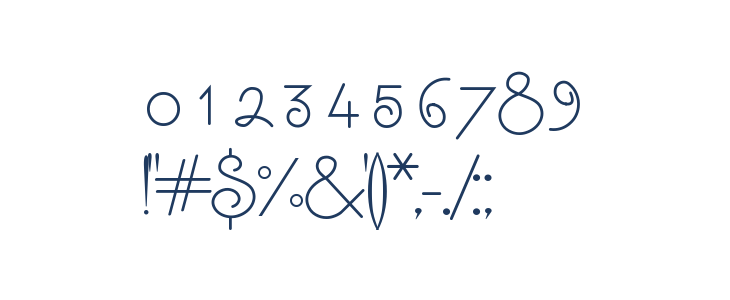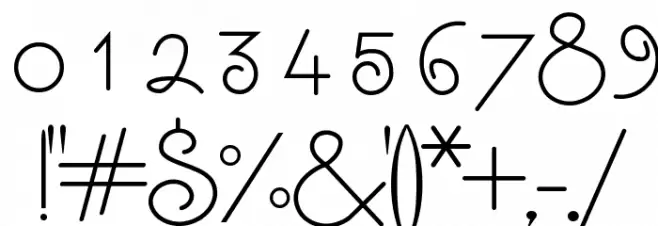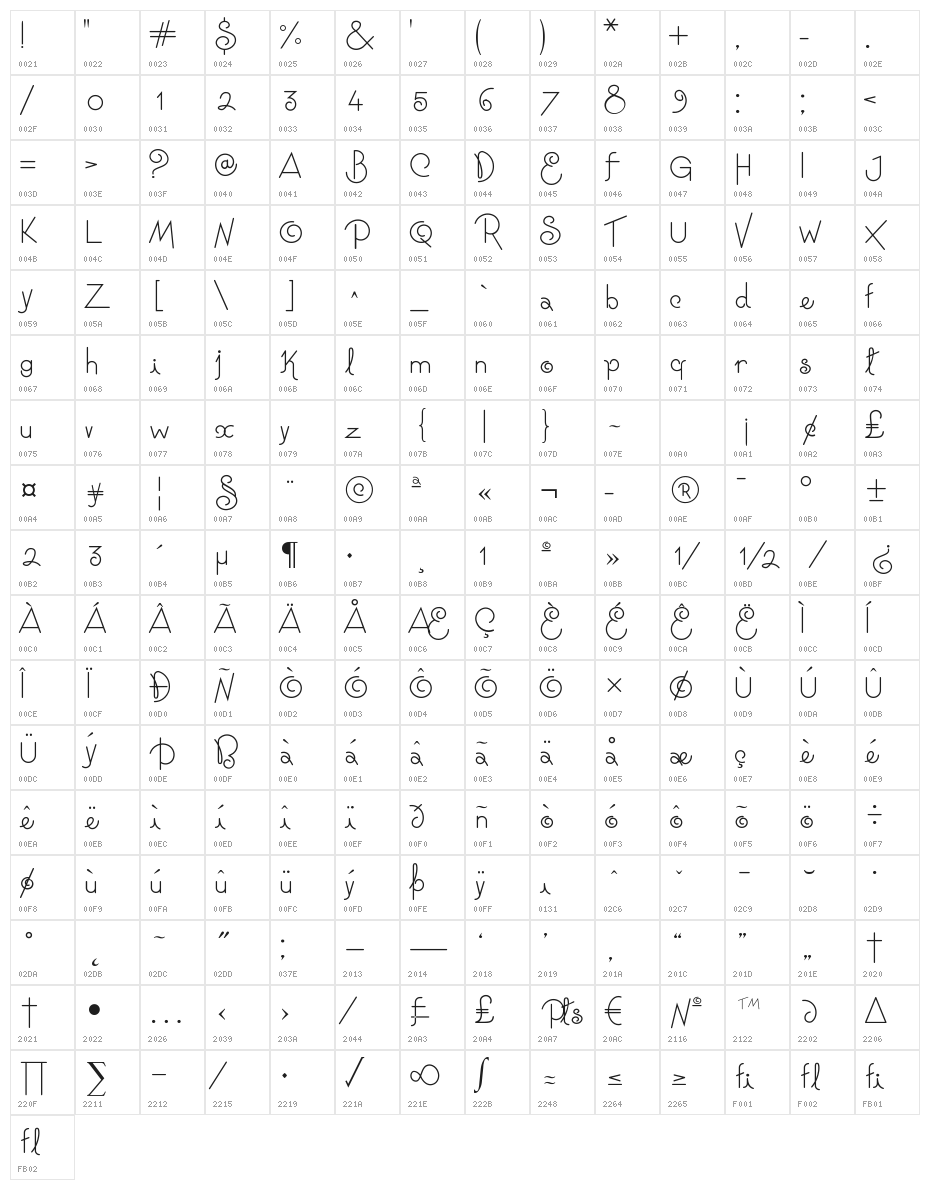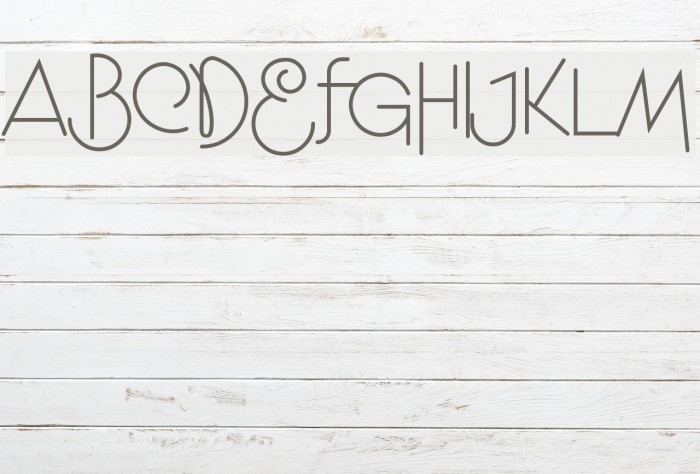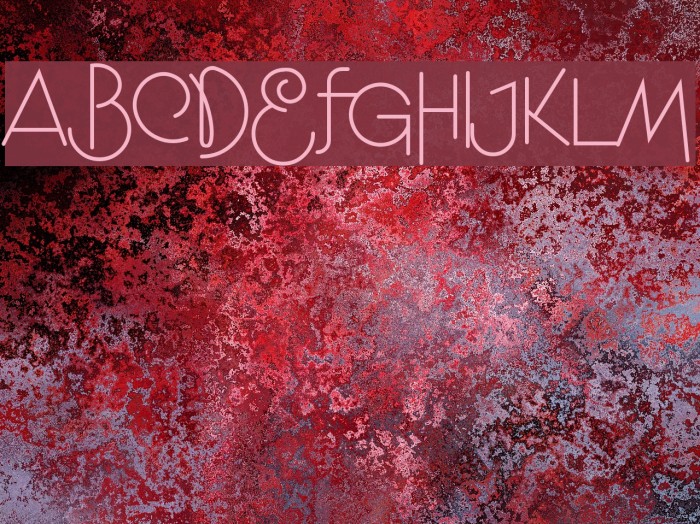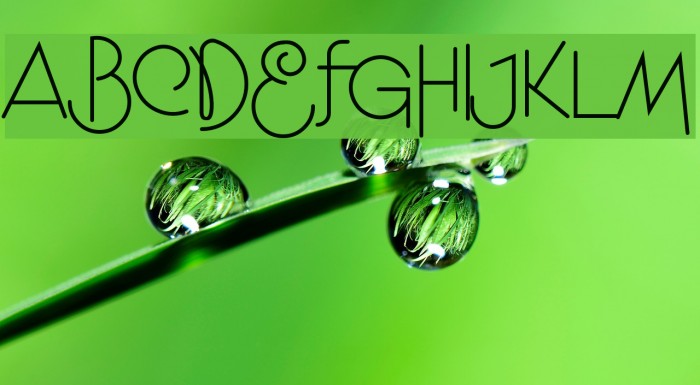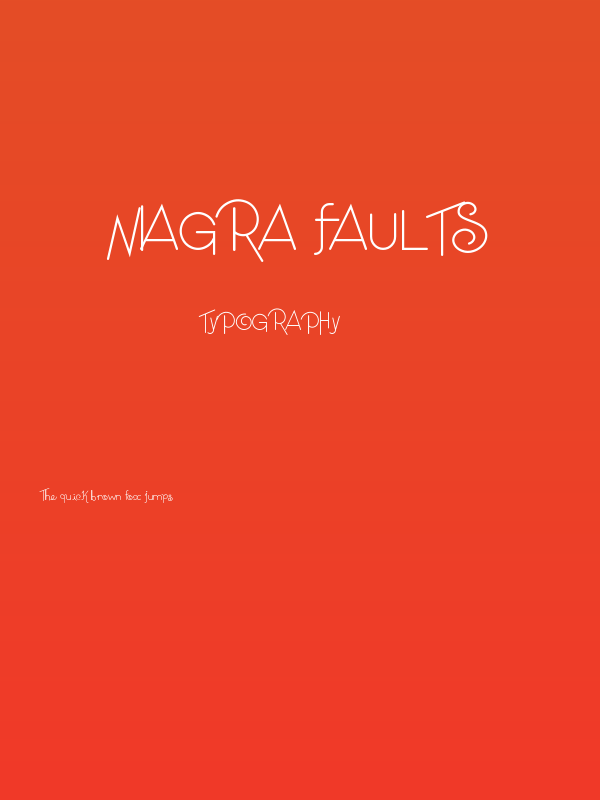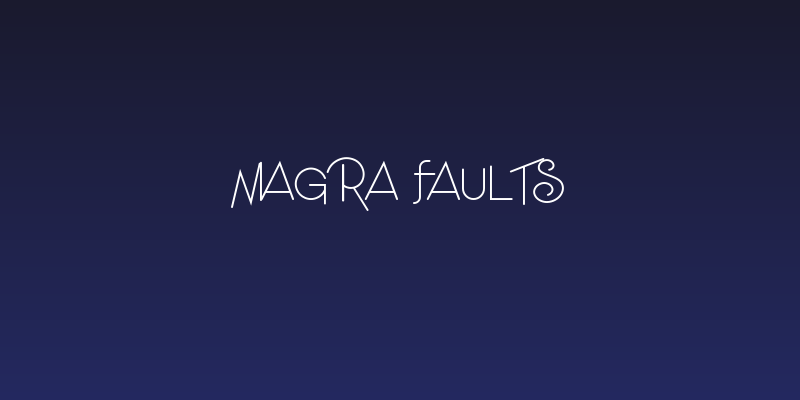
Niagra Faults Font
Niagra Faults Description
This font features a playful and artistic design with a unique twist on traditional letterforms. Each character is crafted with a combination of curves and straight lines, creating a whimsical and dynamic appearance. The uppercase letters are particularly distinctive, with some incorporating spiral or looped elements that add a sense of movement and creativity. The lowercase letters maintain a consistent style, complementing the uppercase with their own subtle quirks. Numbers and special characters follow the same design principles, ensuring a cohesive look across all glyphs. This font is perfect for projects that require a touch of fun and originality.